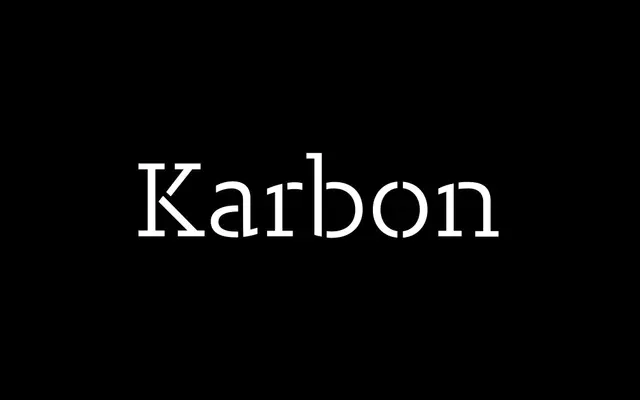
Karbon Slab Stencil
Klim Type Foundry · Kris Sowersby · 2009
Karbon Slab Stencil specimen from Klim Type Foundry
Karbon's geometric skeleton pushed into slab-serif territory with stencilled breaks, fit for industrial and utility-flavoured display work.
A stencil slab by Kris Sowersby that takes the spartan geometry of Karbon and adds slab serifs plus a logical pattern of breaks, citing the industrial heritage of stencilled letterforms. Two styles only, Regular and Bold, with no italic. Sits as a display companion to Karbon proper, useful for posters, packaging and signage that wants a mechanical, slightly utilitarian voice.
Klim classifies it as Modern: Mechanistic/Stencil; extends Karbon's spartan geometric linework into slab-serif territory, with a logical programme of breaks referencing the industrial heritage of stencilled letterforms.